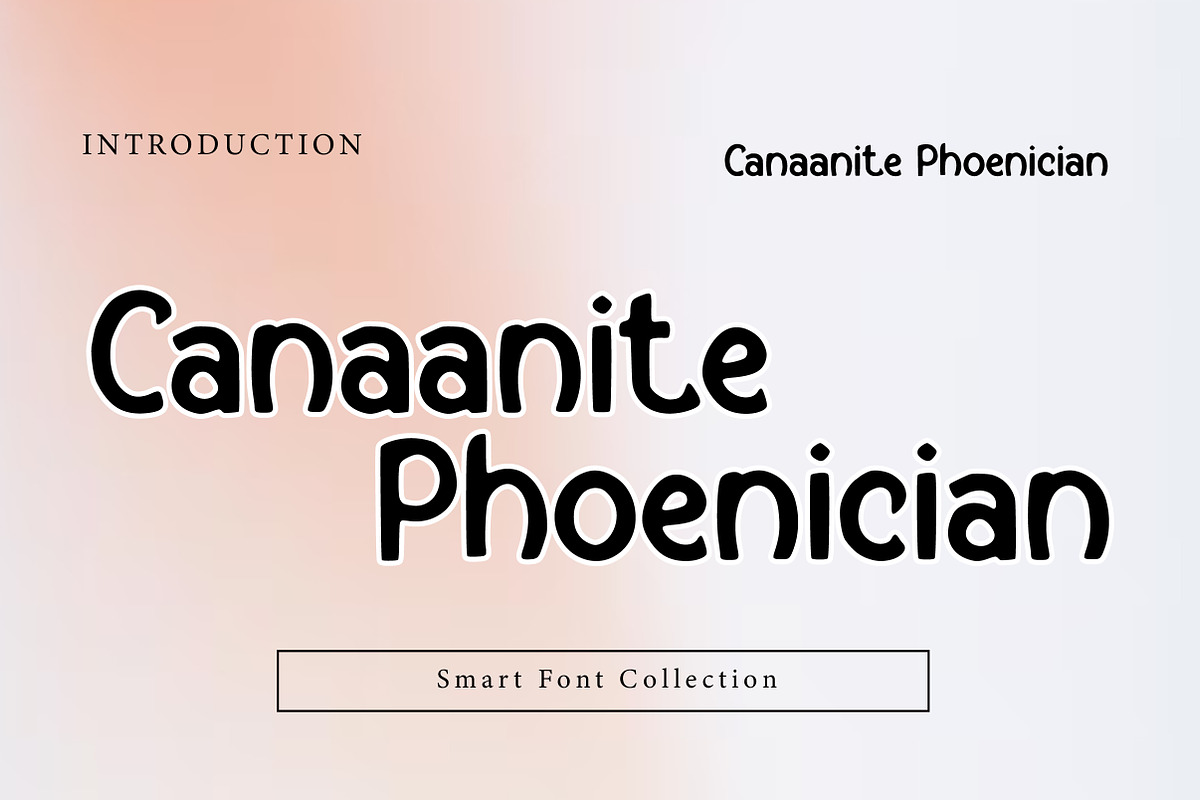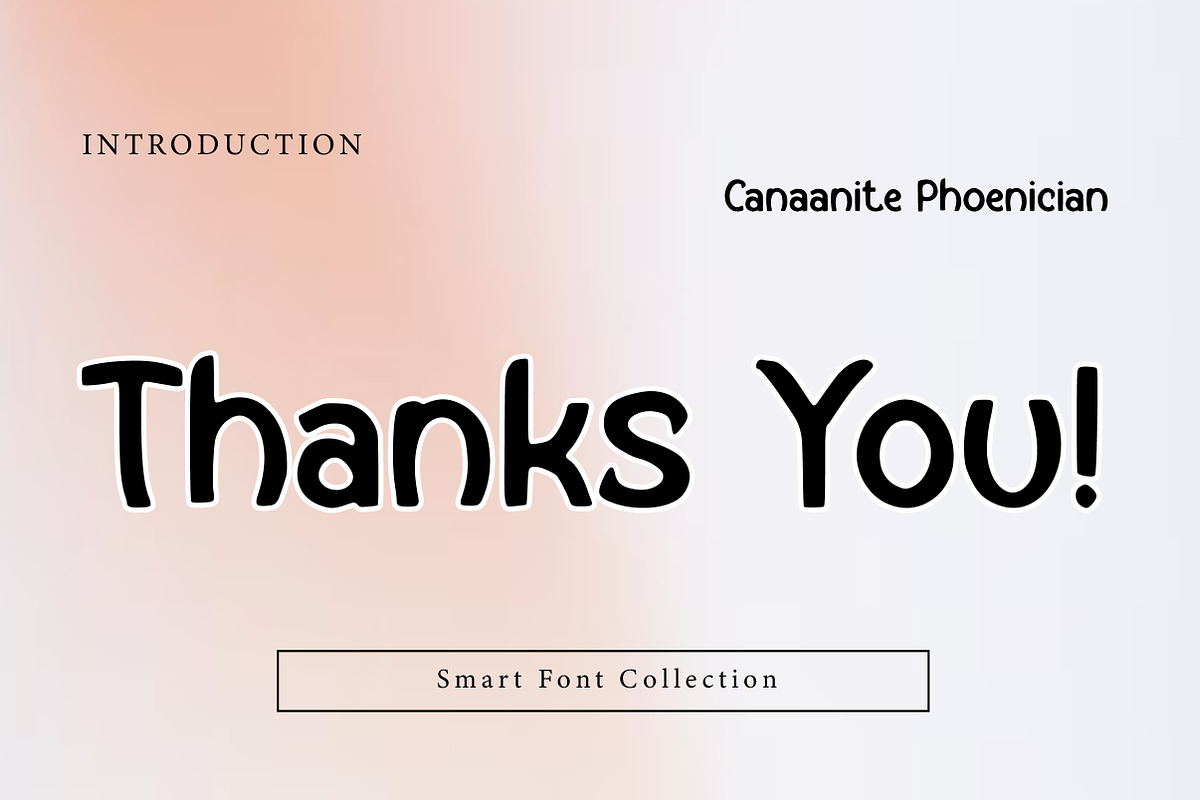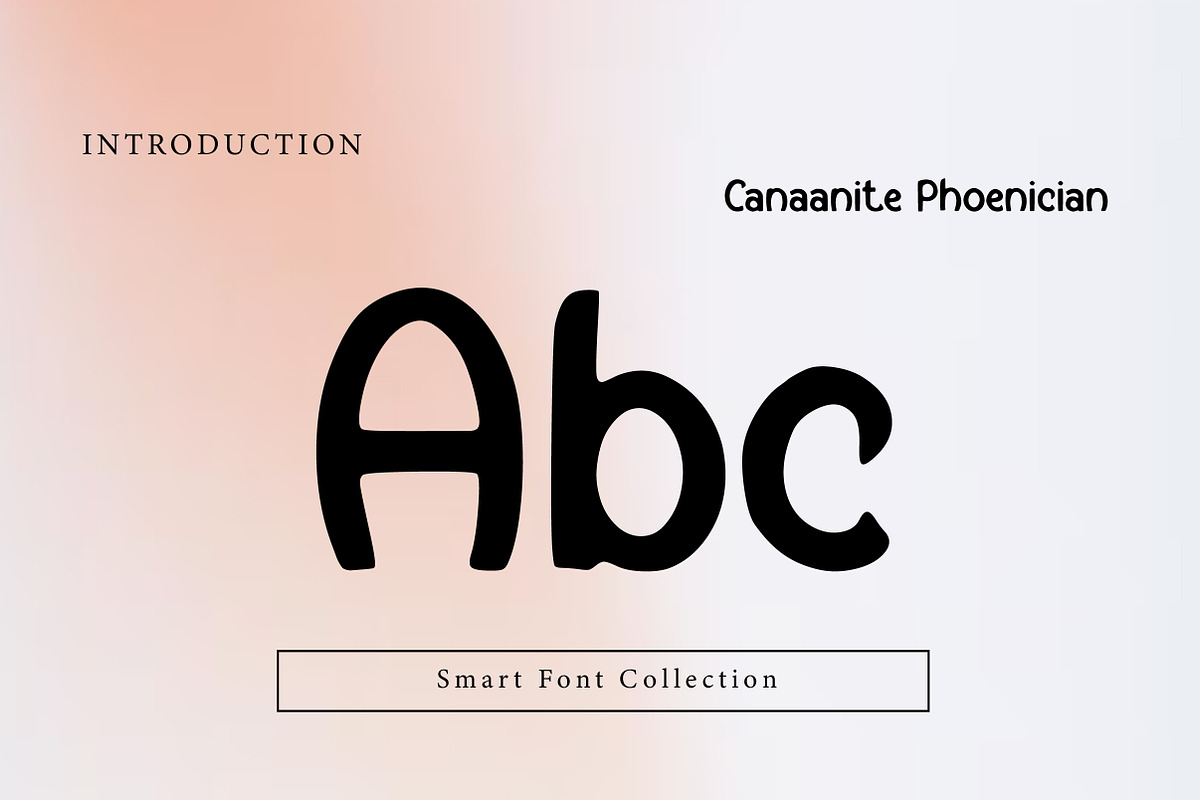
Canaanite Phoenician
Canaanite Phoenician is a bold, historic ancient-inspired display font influenced by early Semitic, Phoenician, and Canaanite letterforms. Its rough, primitive strokes and carved appearance evoke inscriptions, stone engravings, and archaeological scripts. This font is ideal for historical projects, book covers, posters, logos, film titles, educational material, mythology, and ancient-themed designs. Canaanite Phoenician delivers an authentic, timeless, and scholarly atmosphere.